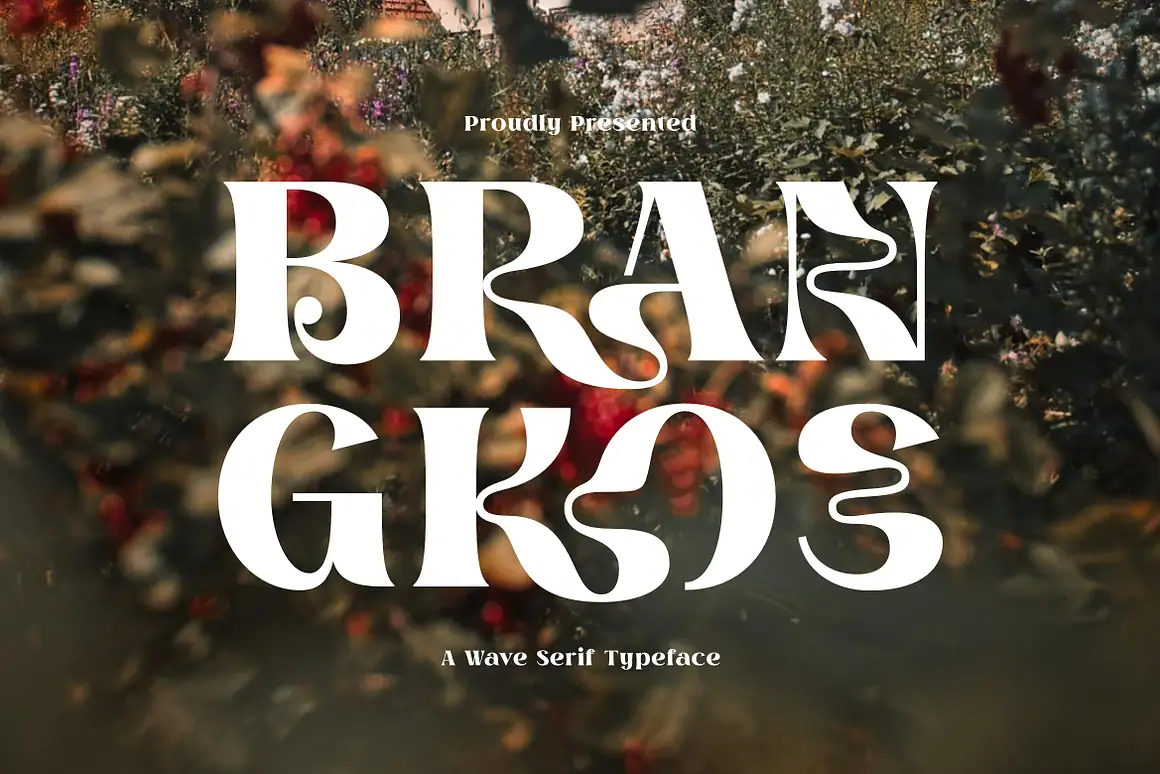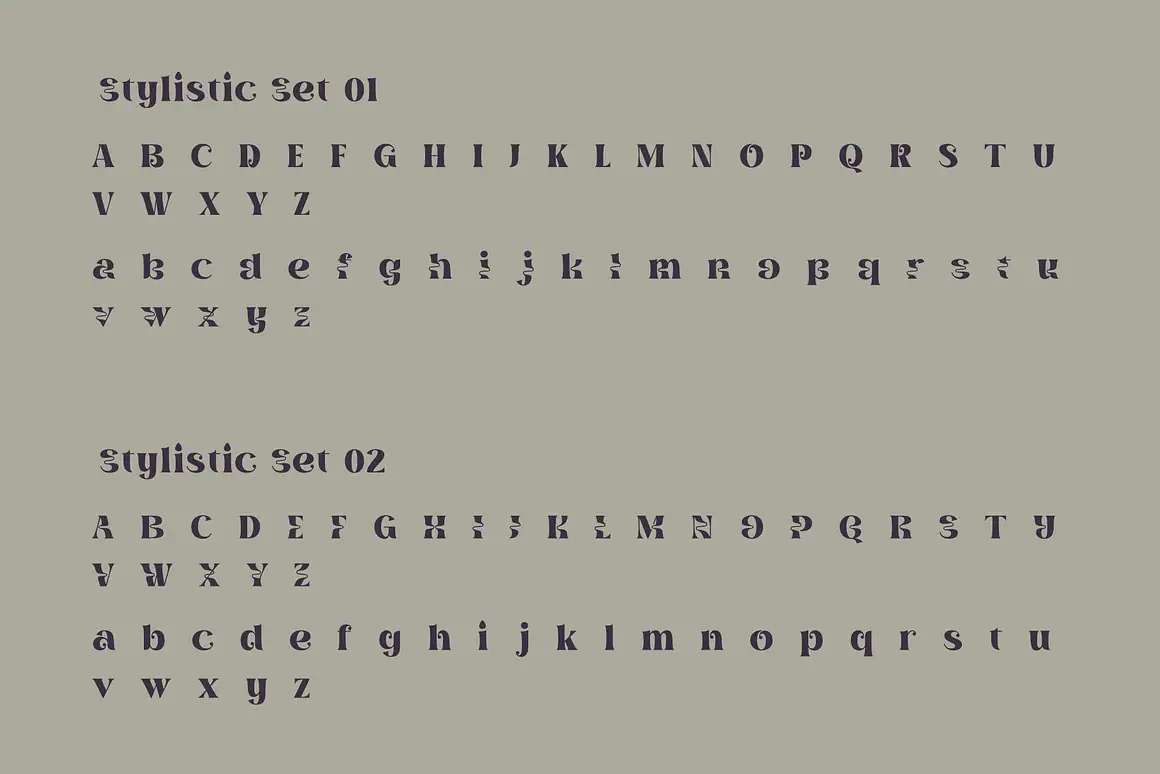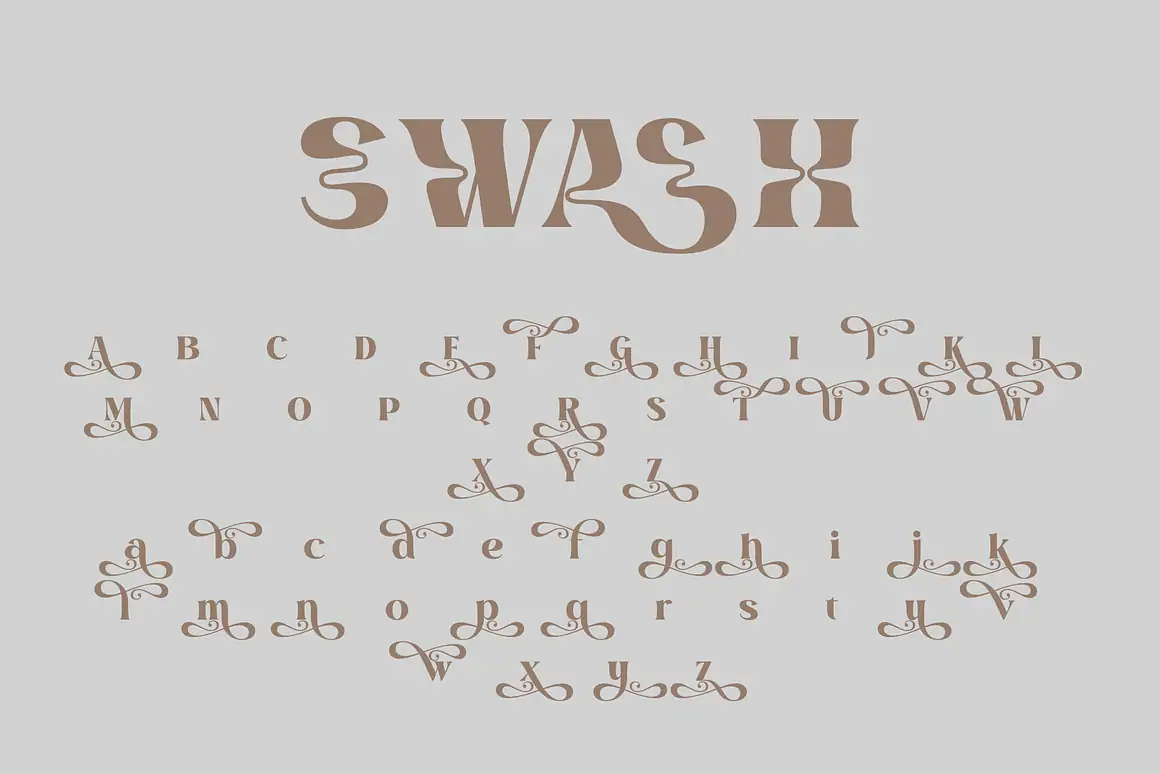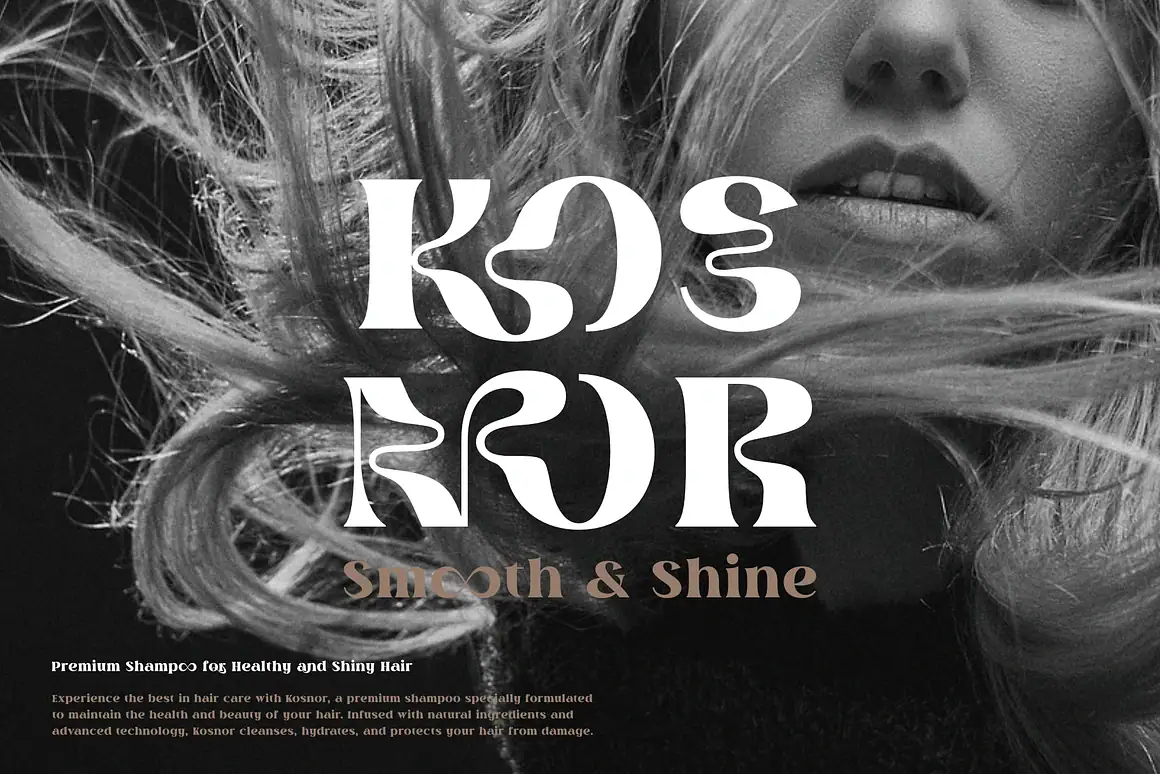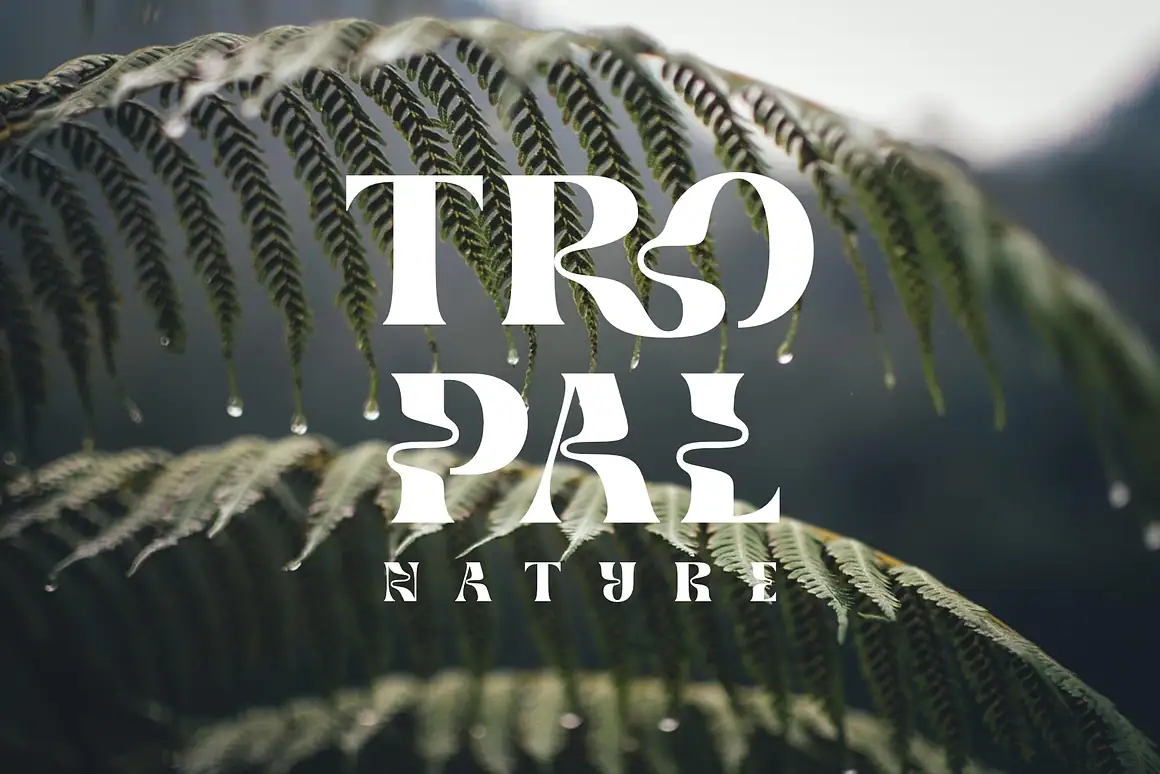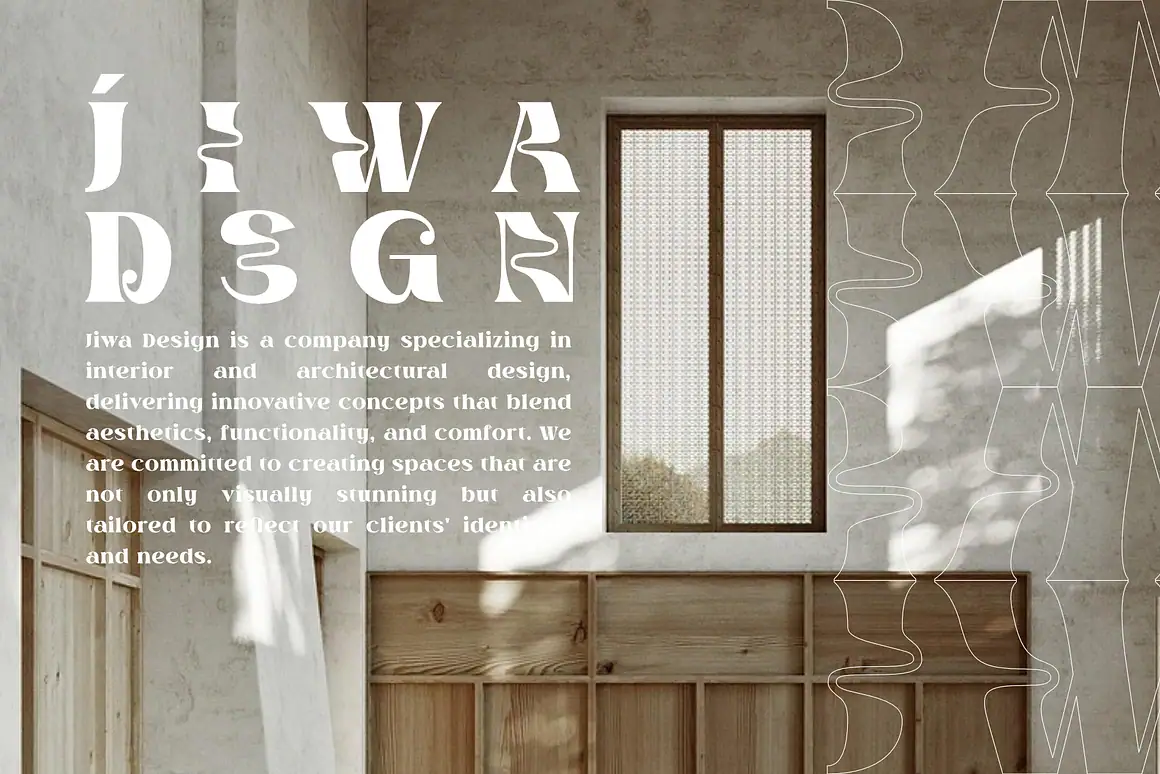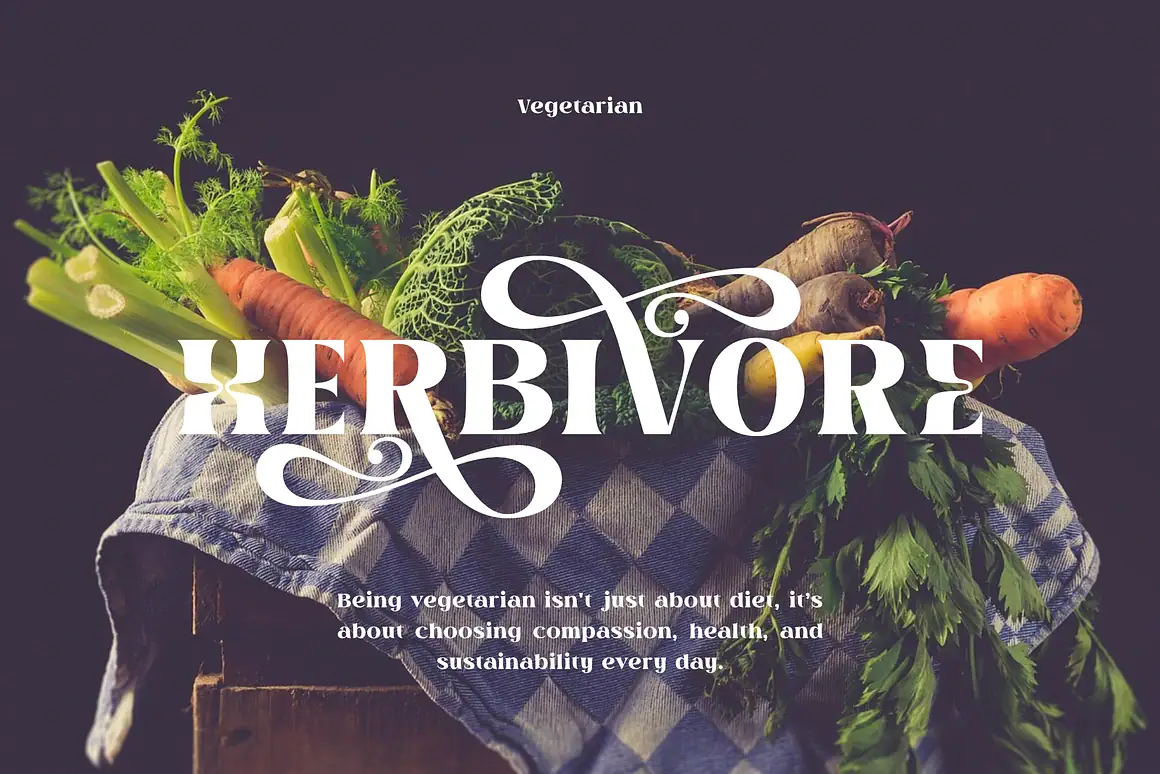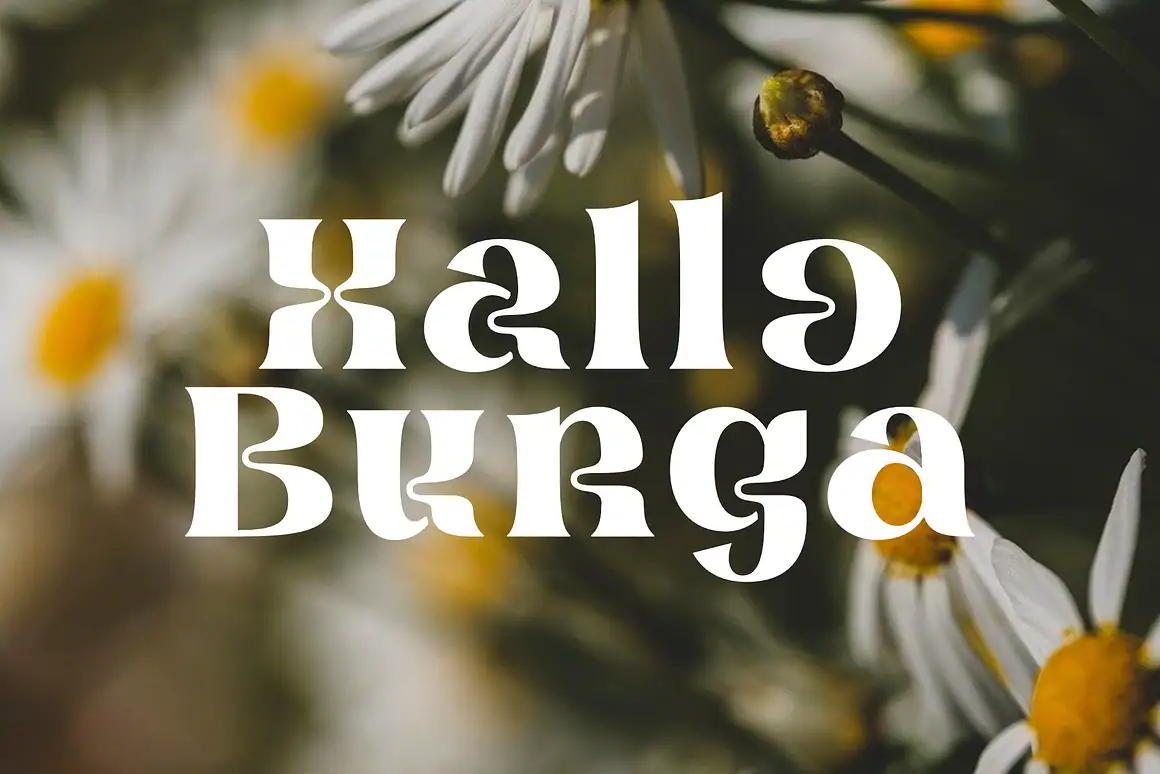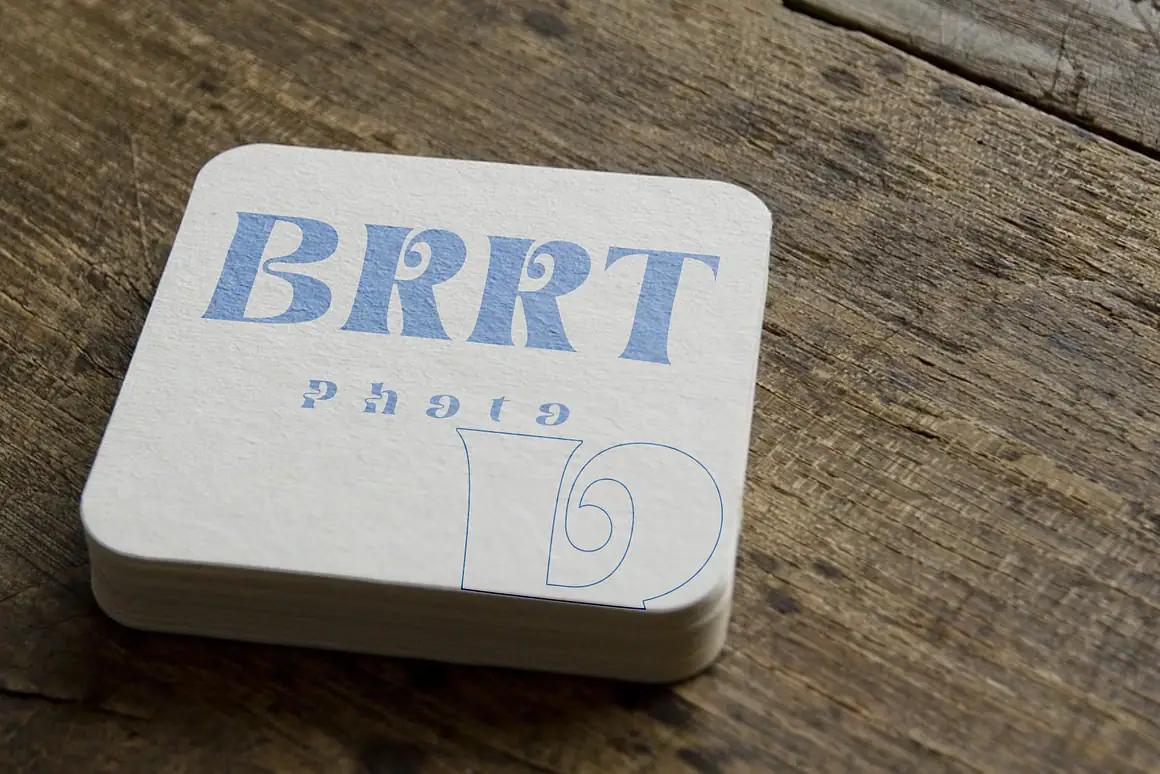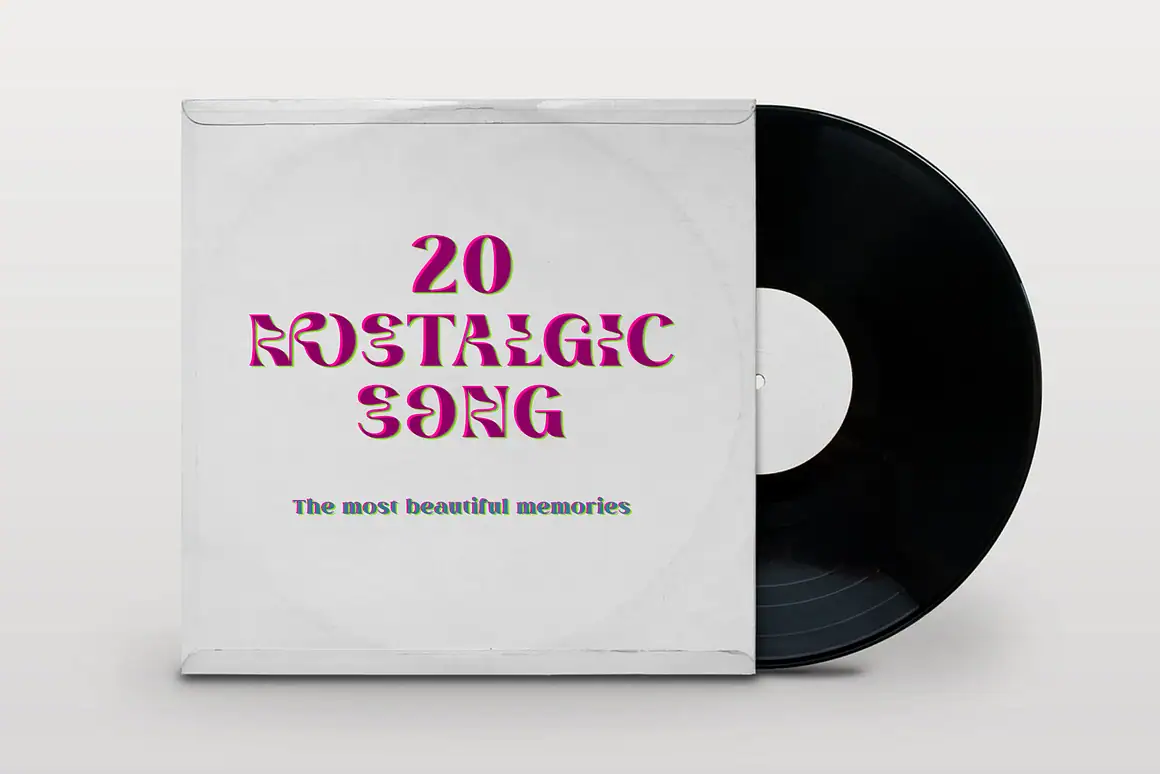
Brangkos A Wave Serif Typeface
Brangkos A Wave Serif Typeface – Bold curves, organic flow — made for natural beauty brands.
Meet Brangkos, a modern wave serif typeface inspired by the natural elegance of flowing water and organic landscapes. Designed to capture the rhythm of nature, Brangkos brings a sense of movement, softness, and bold personality into your branding. With its distinctive wave-like curves and refined serifs, Brangkos is perfect for beauty brands, natural product packaging, wellness logos, and lifestyle editorials. Every letterform is thoughtfully crafted to balance artistic flair with readability — making your brand not only stand out, but also feel alive. Whether you’re creating a skincare label, a botanical perfume line, or a holistic wellness studio, Brangkos will infuse your identity with organic charm and confident character.
🛠️ Design Applications Brangkos font is an excellent choice for:
– Logos – Its bold yet elegant shapes give brands a unique, natural sophistication.
– Branding – A perfect fit for eco-conscious, beauty, and wellness-oriented products.
– Packaging – Adds a clean, artisanal touch to labels and product boxes.
– Editorial Design – Great for magazine titles, covers, and expressive text elements.
– Web & Social Media – Enhances your online presence with a refined, earthy personality.
✨ Special Features Swashes
• Includes elegant swashes on select letters — ideal for decorative and artistic typography. Stylistic Sets
• Features four alternative letter styles for creative customization and design flexibility. Ligatures
• Includes custom ligatures to enhance visual flow and create beautifully connected letter combinations. Multilingual Support
• Fully supports a range of languages with Latin diacritics, covering most European scripts. Alternate Styles
• Unlock unique character variations to create dynamic and expressive typography. Optimized for Print & Web